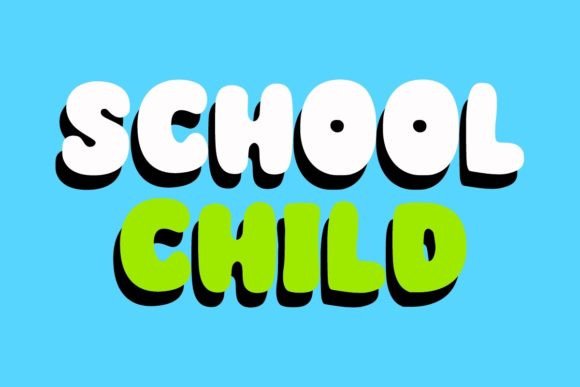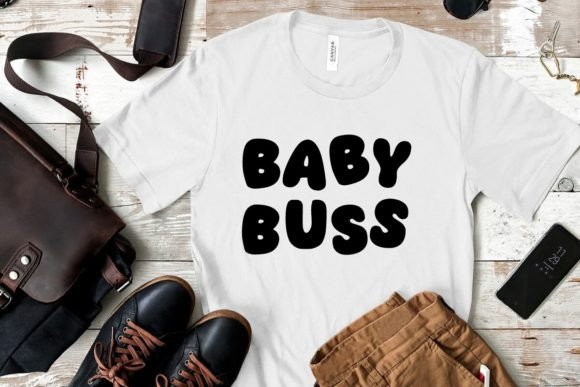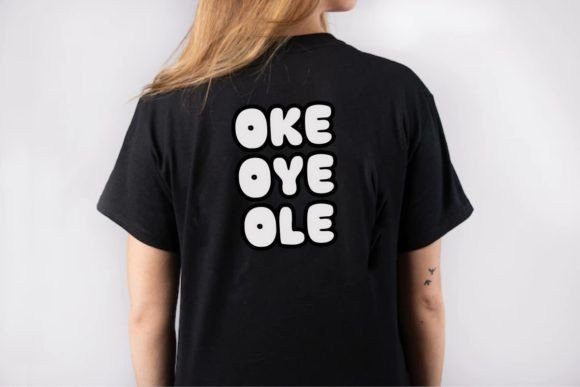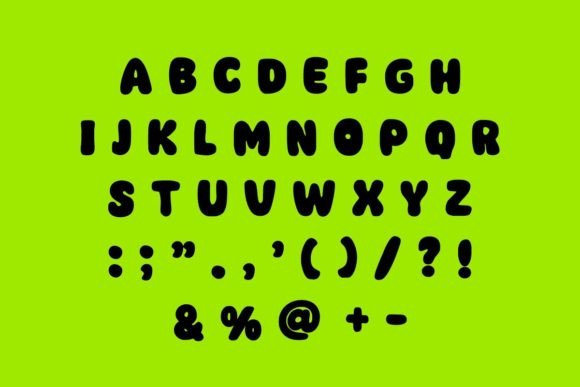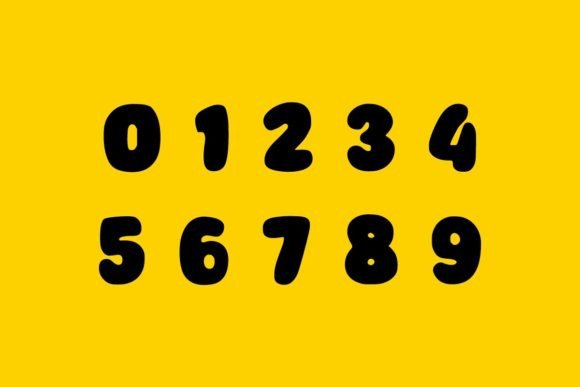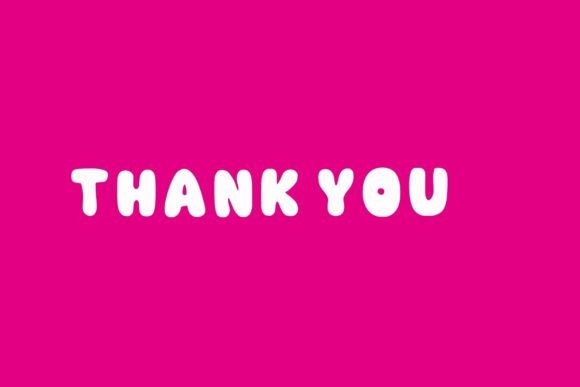
Introduction to Kid Bomba Font
Have you ever stared at a blank canvas, wondering how to bring your creative project to life? It’s that moment of inspiration, when the perfect design element clicks into place, that can make all the difference. For designers, finding the right font can be the key to unlocking a stunning visual identity. That’s where the Kid Bomba Font comes in – a fun and bold display font that’s sure to add a dynamic effect to any design.
With its unique charm and transparent background, the Kid Bomba Font is a valuable resource for designers looking to add some personality to their work. Whether you’re creating a high-quality poster for a sporting event or a logo for a new business, this font is sure to deliver. And the best part? It’s available for a free download, making it a must-have design resource for any creative project.
Key Features of Kid Bomba Font
- High-quality, playful design perfect for a creative project or design resource.
- Unique, hand-drawn style with a transparent background for easy customization.
- Includes uppercase and lowercase letters, numbers, and punctuation marks for comprehensive use.
- Perfect for designing children’s books, educational materials, and other projects that require a fun, youthful tone.
Honest Review: Kid Bomba Font
I recently stumbled upon the Kid Bomba Font, and I must say, it’s a fantastic addition to my design resource library. As a designer, I’m always on the lookout for high-quality fonts that can elevate my creative projects. The Kid Bomba Font is a perfect find, and I’m excited to share my thoughts on it.
- The design is playful and fun, making it perfect for projects that require a lighthearted touch.
- The font is available with a transparent background, which gives me flexibility when using it in different design contexts.
While the Kid Bomba Font is a great find, there are a few limitations to consider:
- The font is not suitable for formal or professional projects, as it’s more geared towards creative and playful projects.
Overall, I’m impressed with the Kid Bomba Font, and I think it’s a great addition to any designer’s library. It’s perfect for designers looking for a fun and playful font for their creative projects.
Tips for Getting the Most Out of Kid Bomba Font
Experiment with different font sizes, colors, and effects to create a unique look. Combine the Kid Bomba Font with other design elements to create a visually appealing design.
Common Use Cases for Kid Bomba Font
The Kid Bomba Font is perfect for creating fun and playful designs, such as children’s party invitations, birthday cards, and educational materials. Its transparent background makes it easy to combine with other design elements.